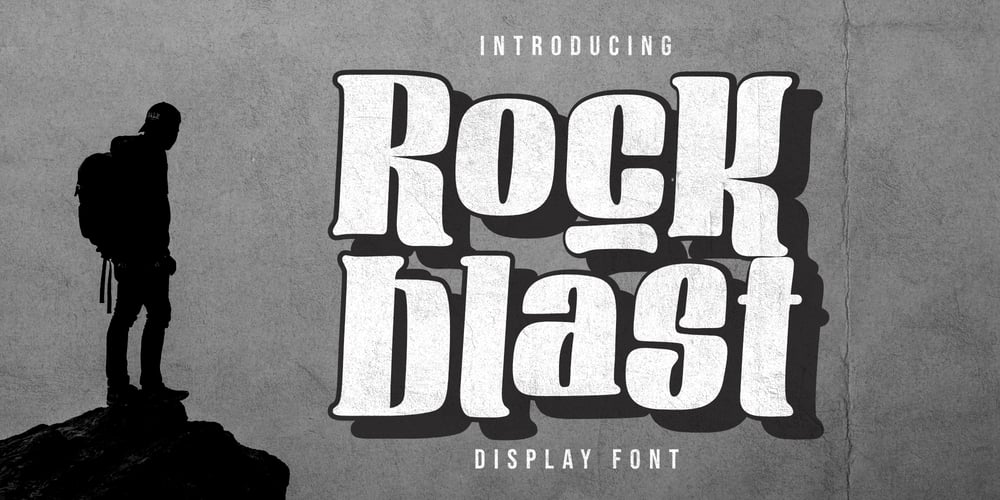
Rockblast Font Family was designed by Andi Kaisar and published by Violatype. Rockblast contains 2 styles and family package options. Rockblast is a display font with Extruded, this font is made for those of you who like exciting styles and this unique font is perfect for youThis font is perfect for various types of products, such as being printed on a skateboard, car, or product cover, headlines, quotes, adventure designs, and more.This font contains a lot of alternates and ligatures, to make your design more masculine, and bolderIf you have any questions, don’t hesitate to contact us.